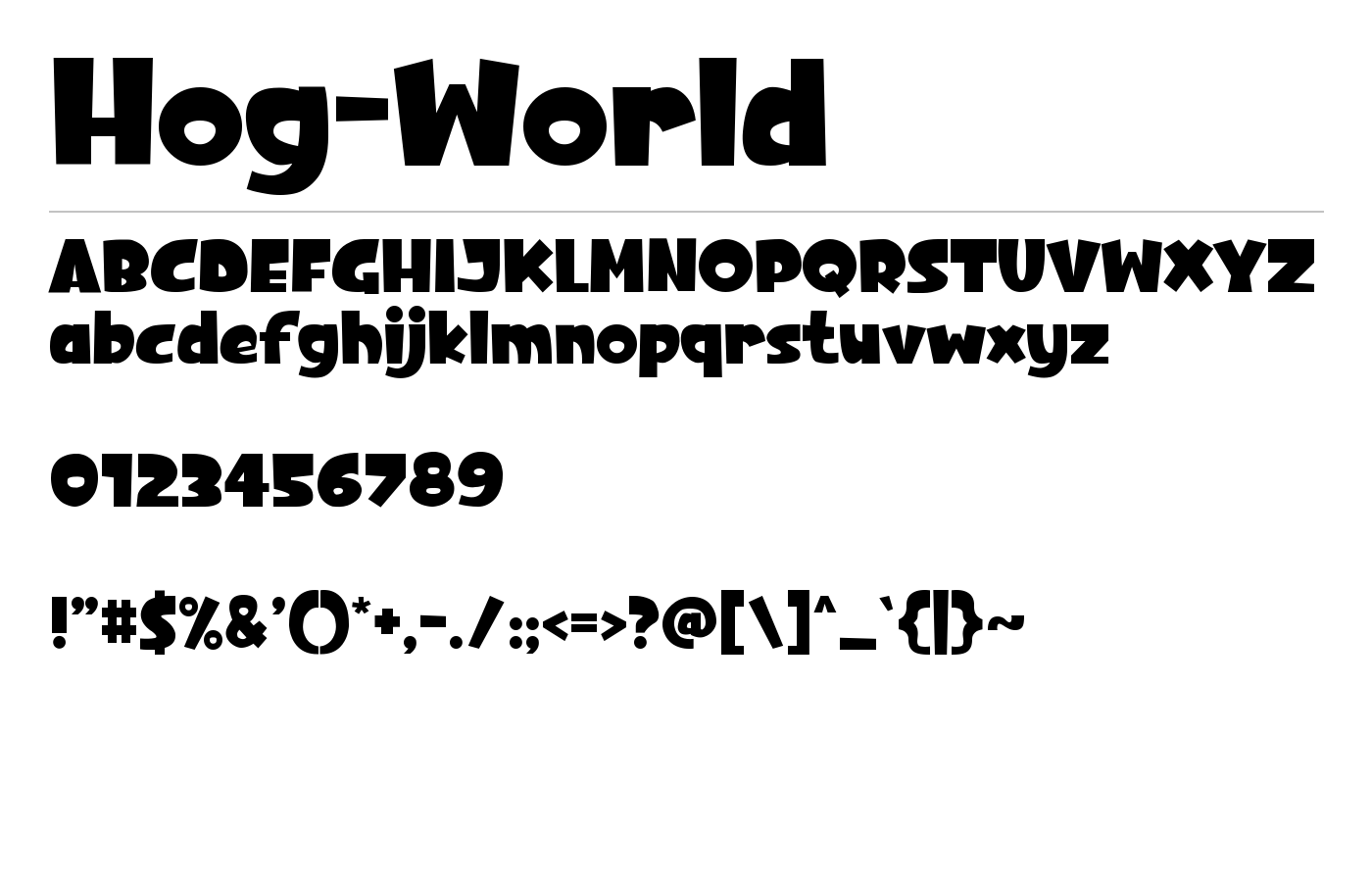
Hog World is a bold, playful sans serif font with a chunky, condensed style that gives it a strong and friendly presence. Its geometric shapes and high x-height make it highly legible, while the quirky letterforms add a fun, informal vibe, perfect for branding, posters, or headlines where a lively and approachable tone is desired. This font works well for creative projects that need a confident yet casual look that stands out.
Hog World Font
About Hog World Font